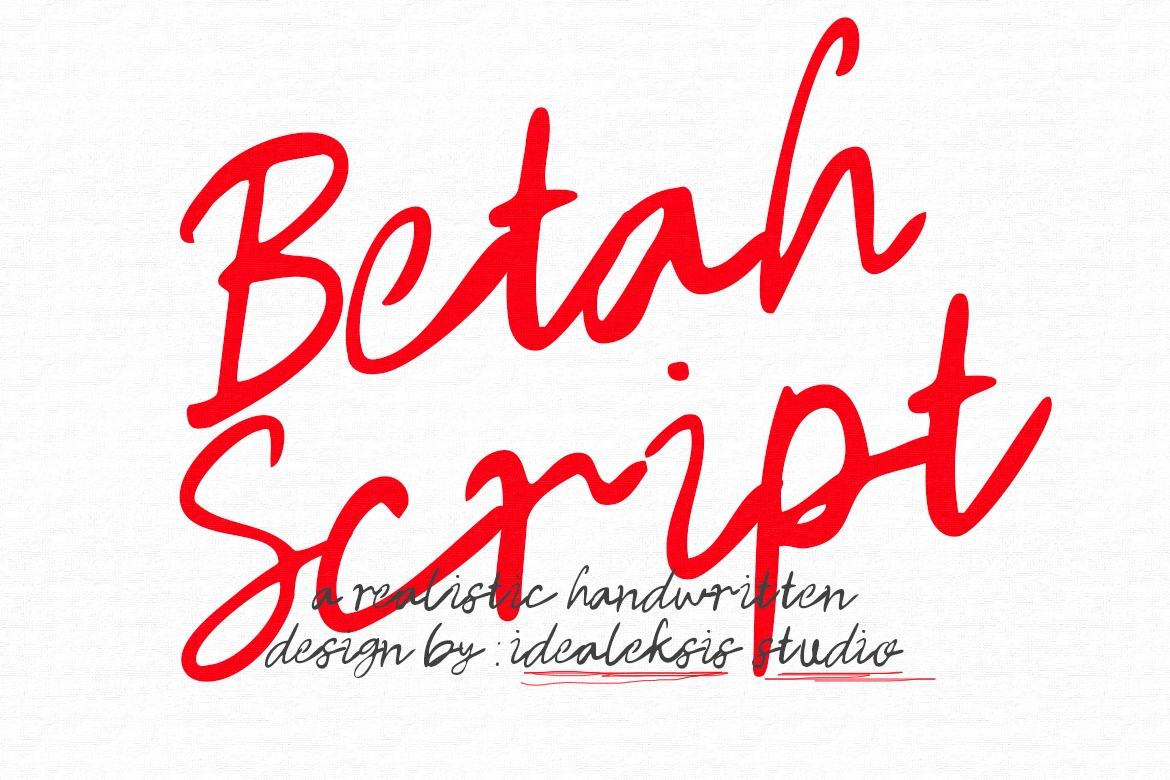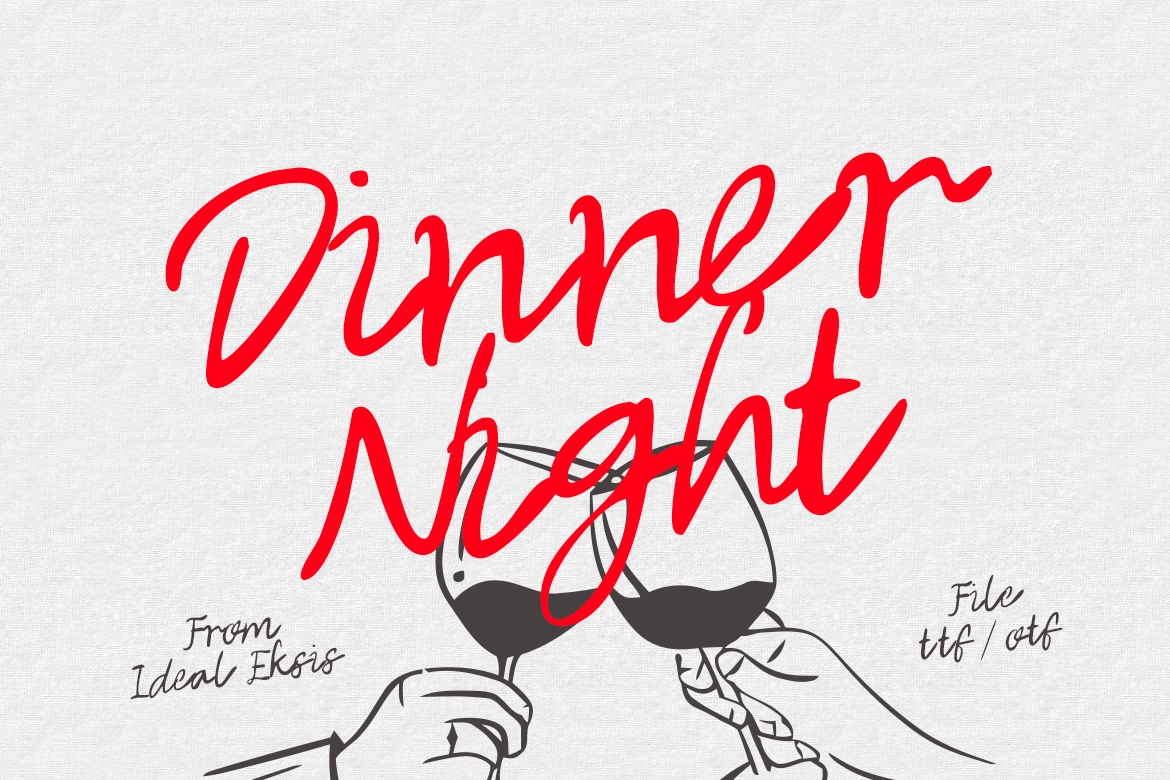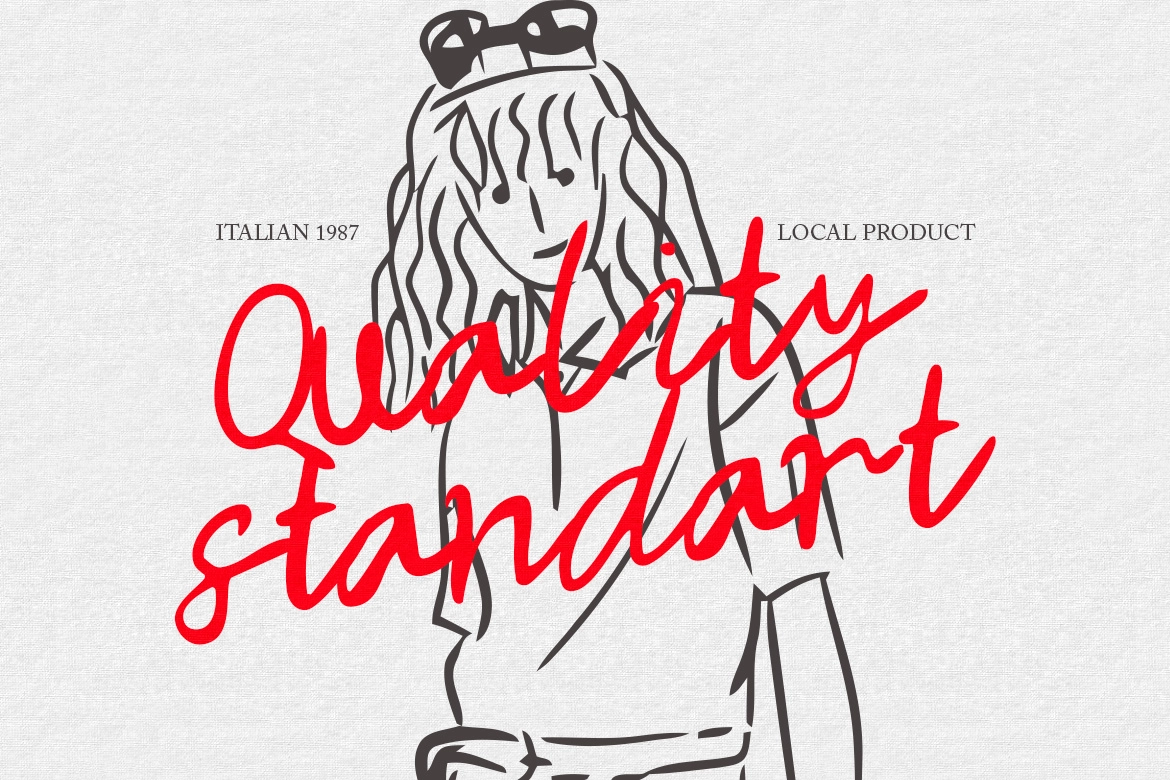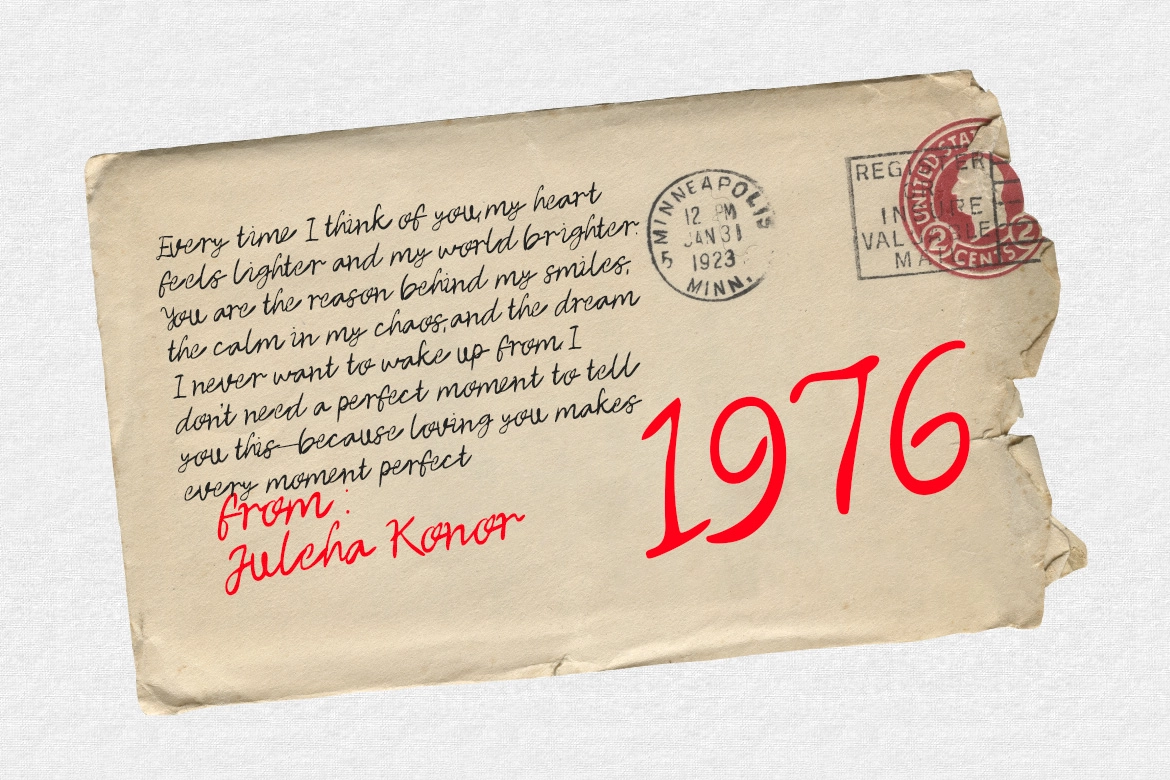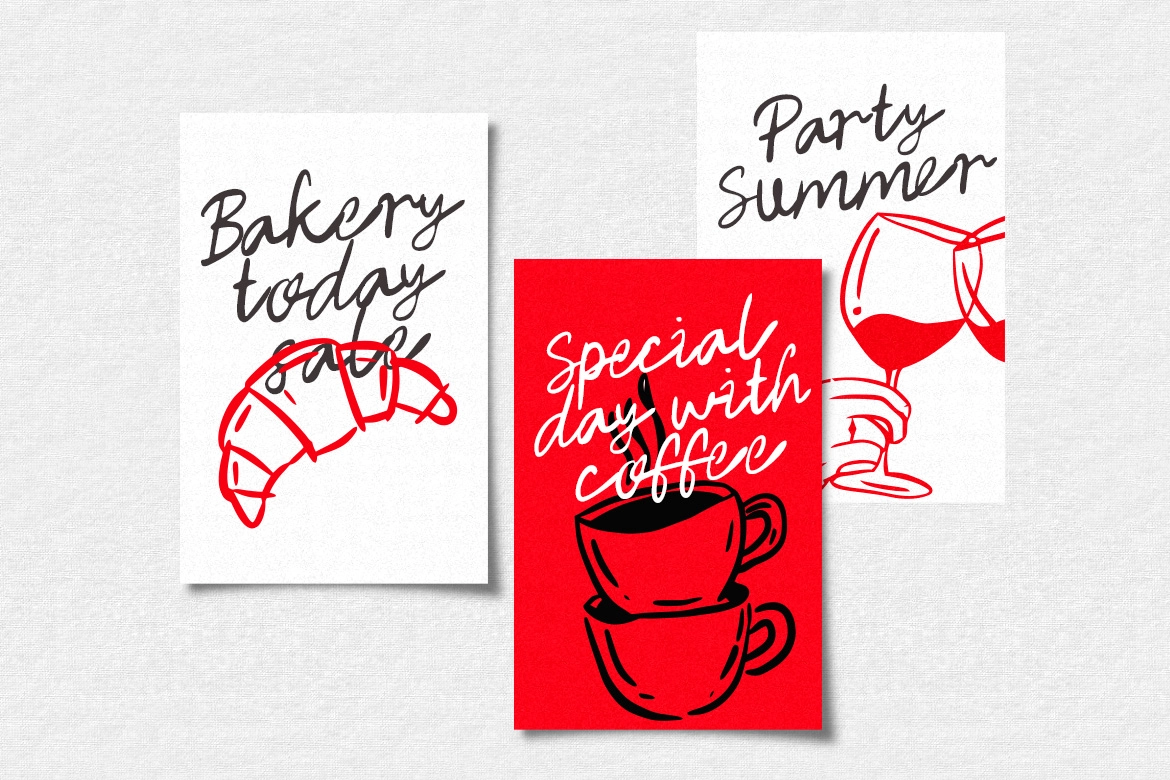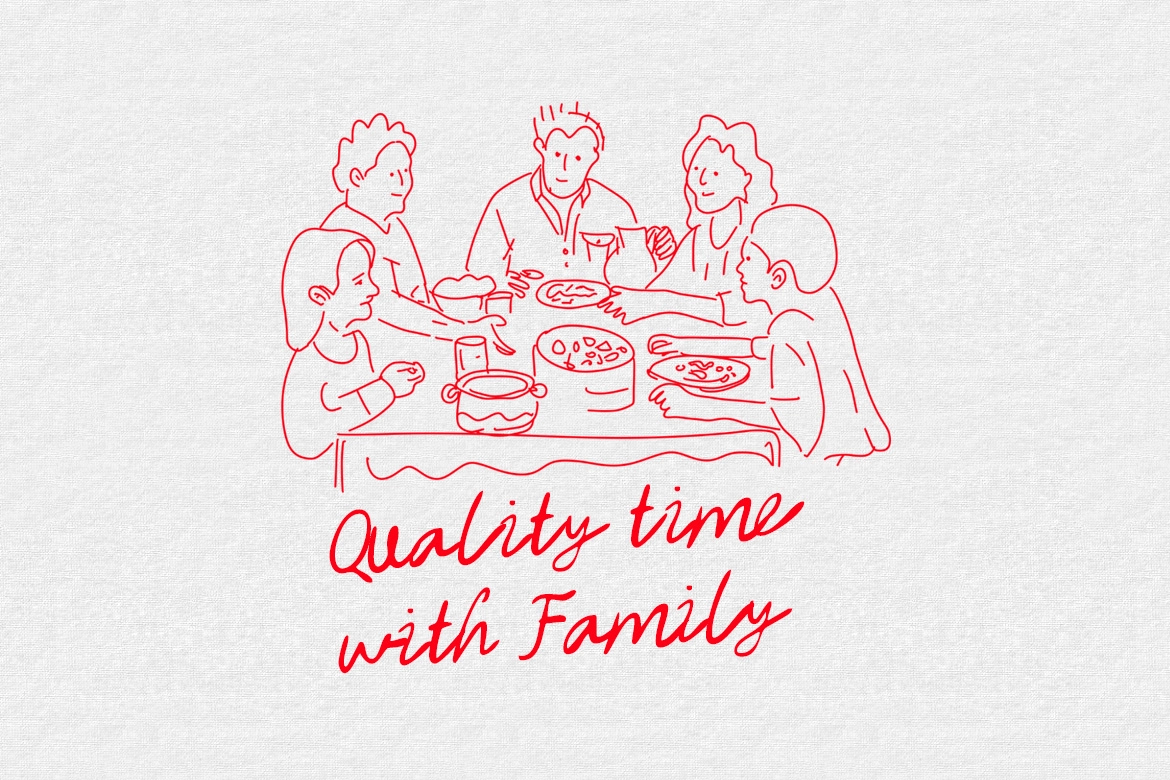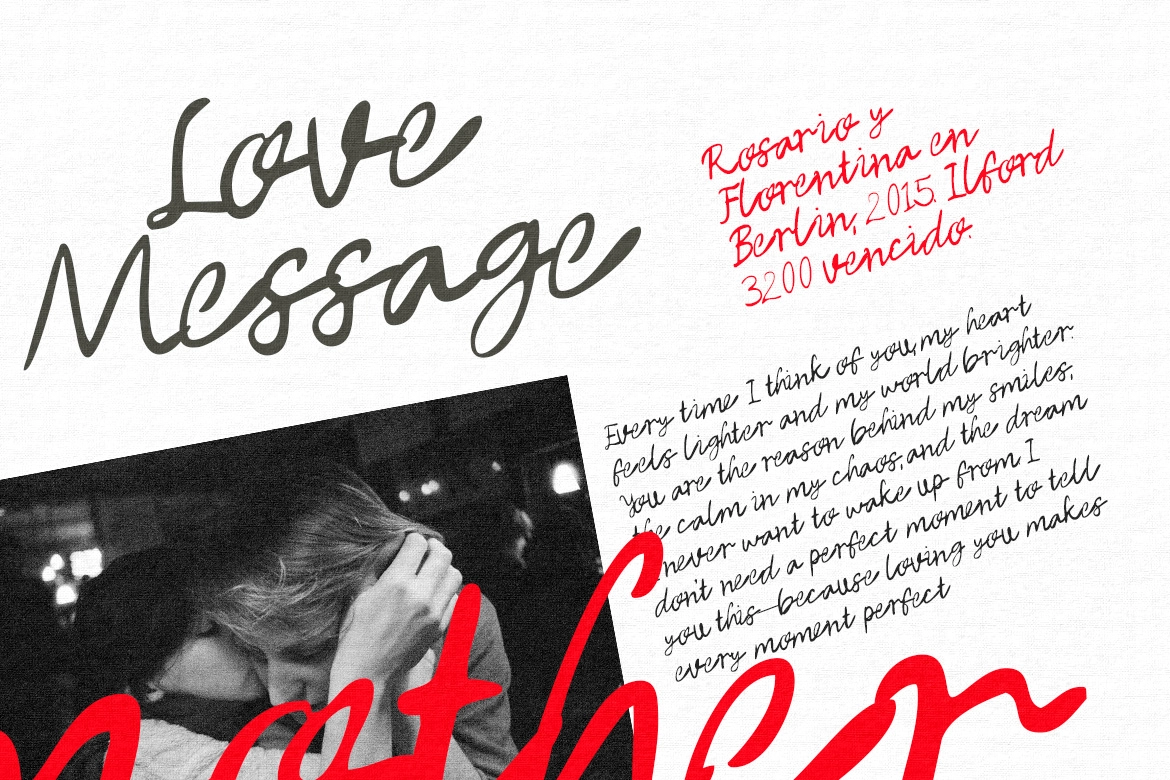
Betah - Brush Script Font
Betah – Brush Script Font is a bold and expressive handwritten typeface designed to capture the natural movement of a real brush pen. With fluid strokes, dynamic contrast, and sweeping terminals, Betah delivers an authentic ink-on-paper feel that brings warmth and personality to every word. The organic rhythm and smooth letter connections create a lively flow, making your typography feel spontaneous and full of energy.
Perfect for branding, packaging, social media content, wedding designs, quotes, posters, and signature-style logos, Betah Brush Script Font adds a personal and artistic touch to both print and digital projects. Its slightly textured strokes enhance realism, giving your designs a handcrafted look that feels genuine, modern, and visually striking.
- Natural brush-style letterforms
- Smooth flow with stylish ligature feel